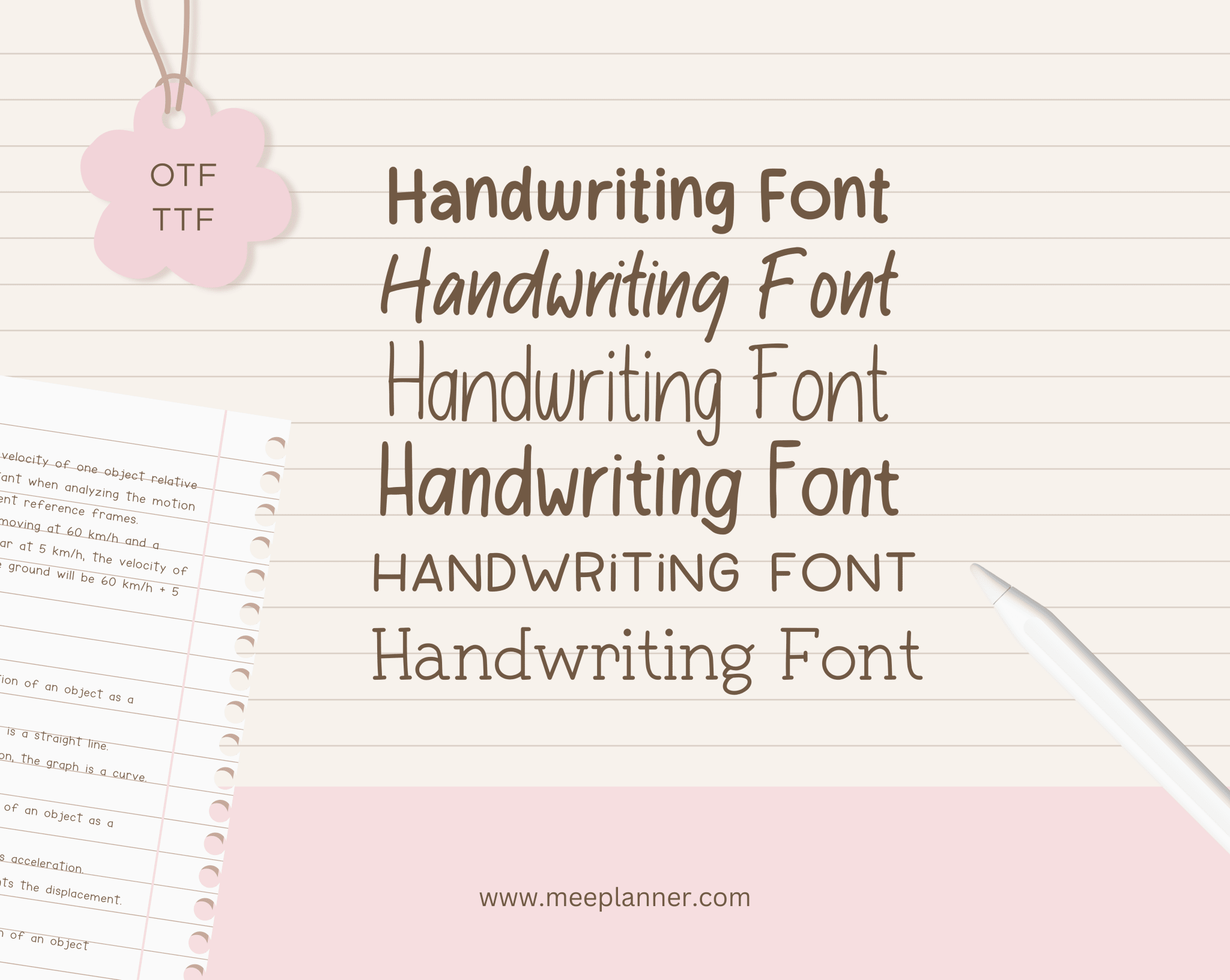
discover a versatile font collection
Our Handwritten Fonts Mega Pack offers a diverse range of styles suitable for every creative project. With hundreds of unique fonts included, it’s an excellent resource for designers and artists looking to enhance their work. The collection ranges from elegant scripts to bold handwritten prints, making it easy to find the perfect font for your needs.
enhance your design projects easily
Each font is carefully crafted to ensure clarity and aesthetic appeal in both digital and print media. The high-quality, legible styles are ideal for anything from wedding invitations to website headers. Effortlessly elevate your projects with a personal touch by integrating these distinct fonts.